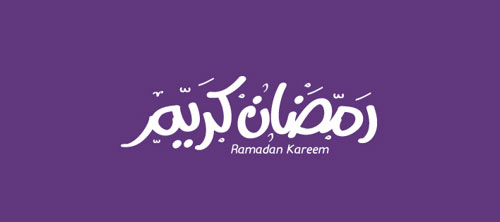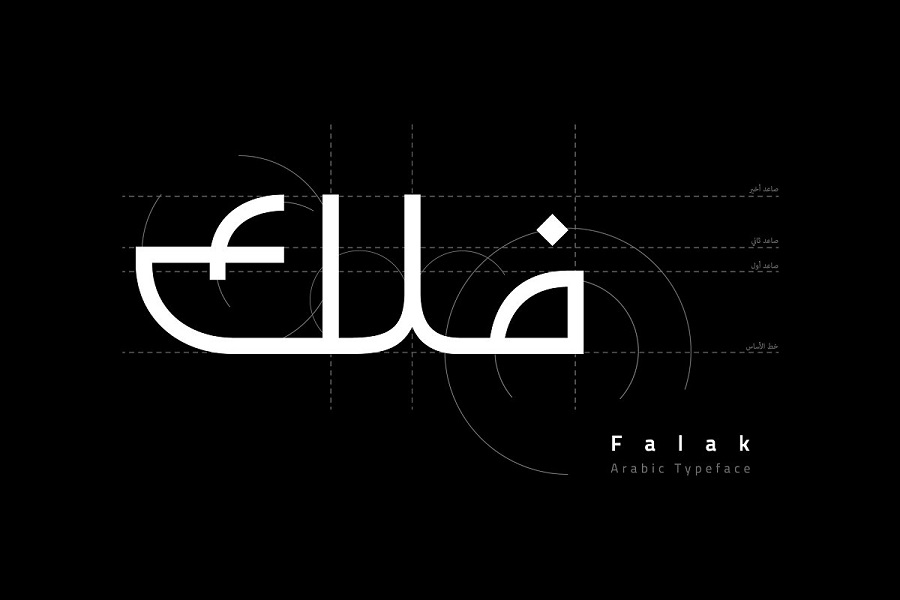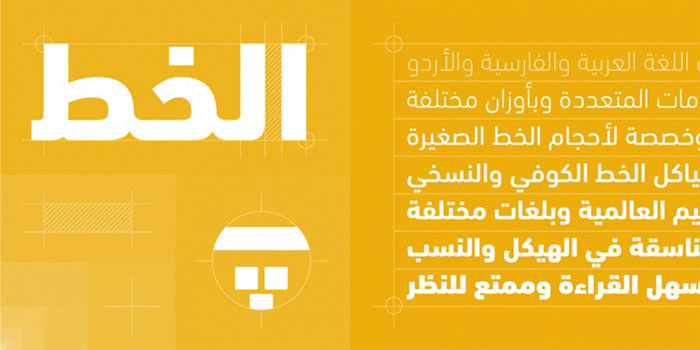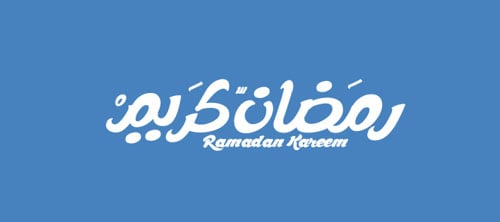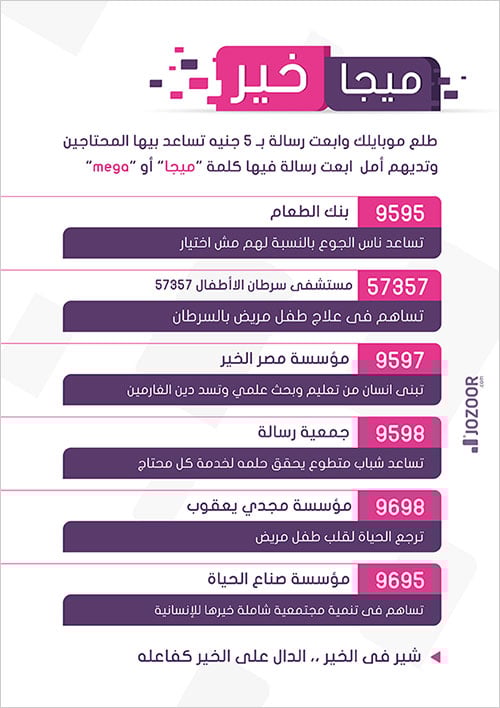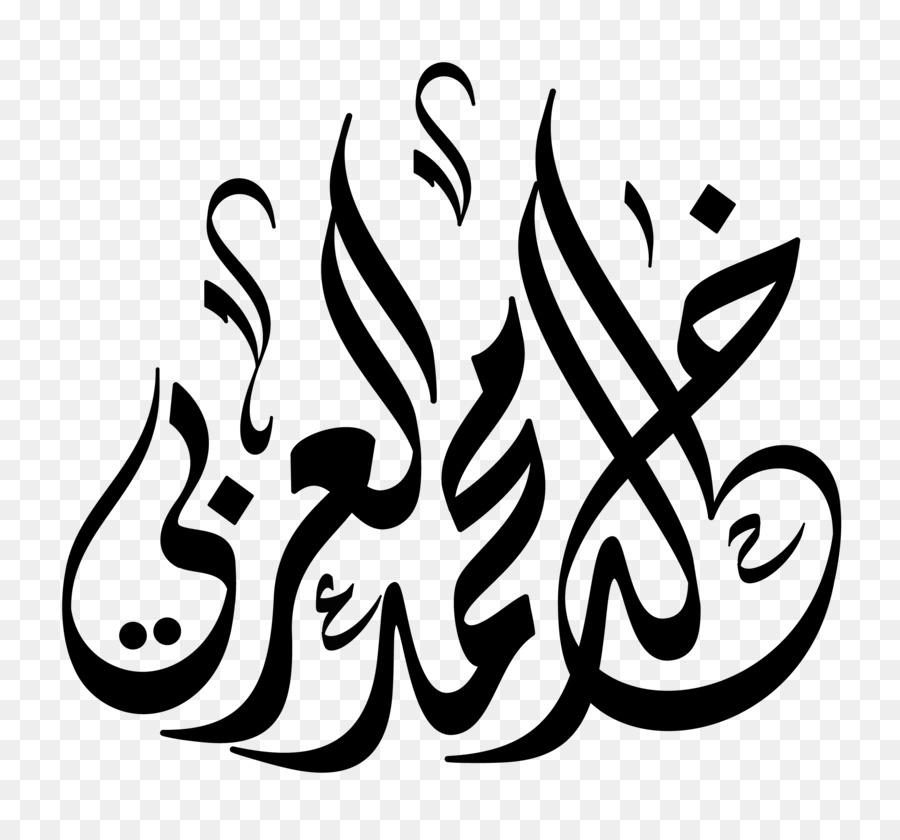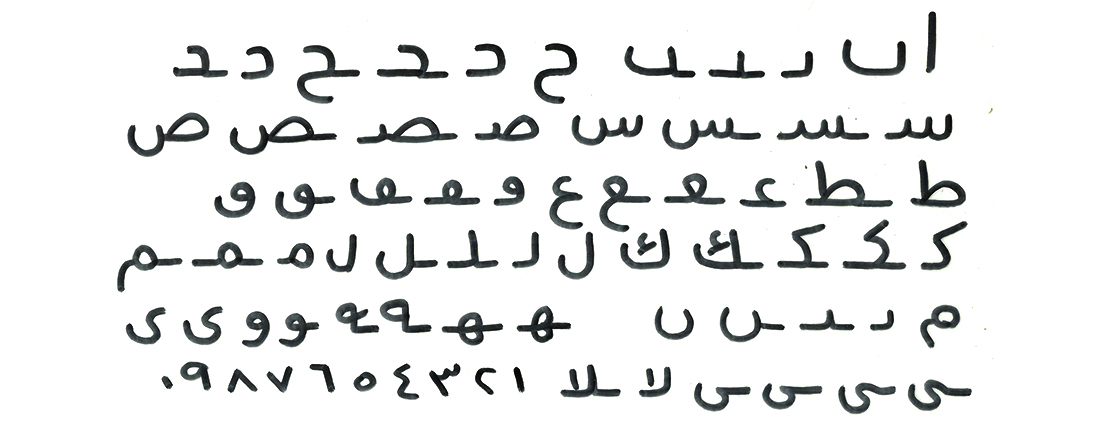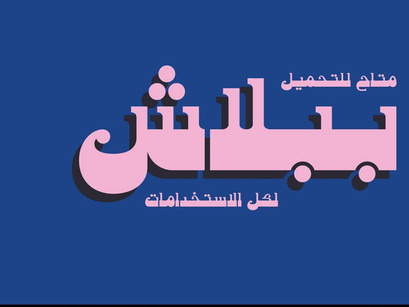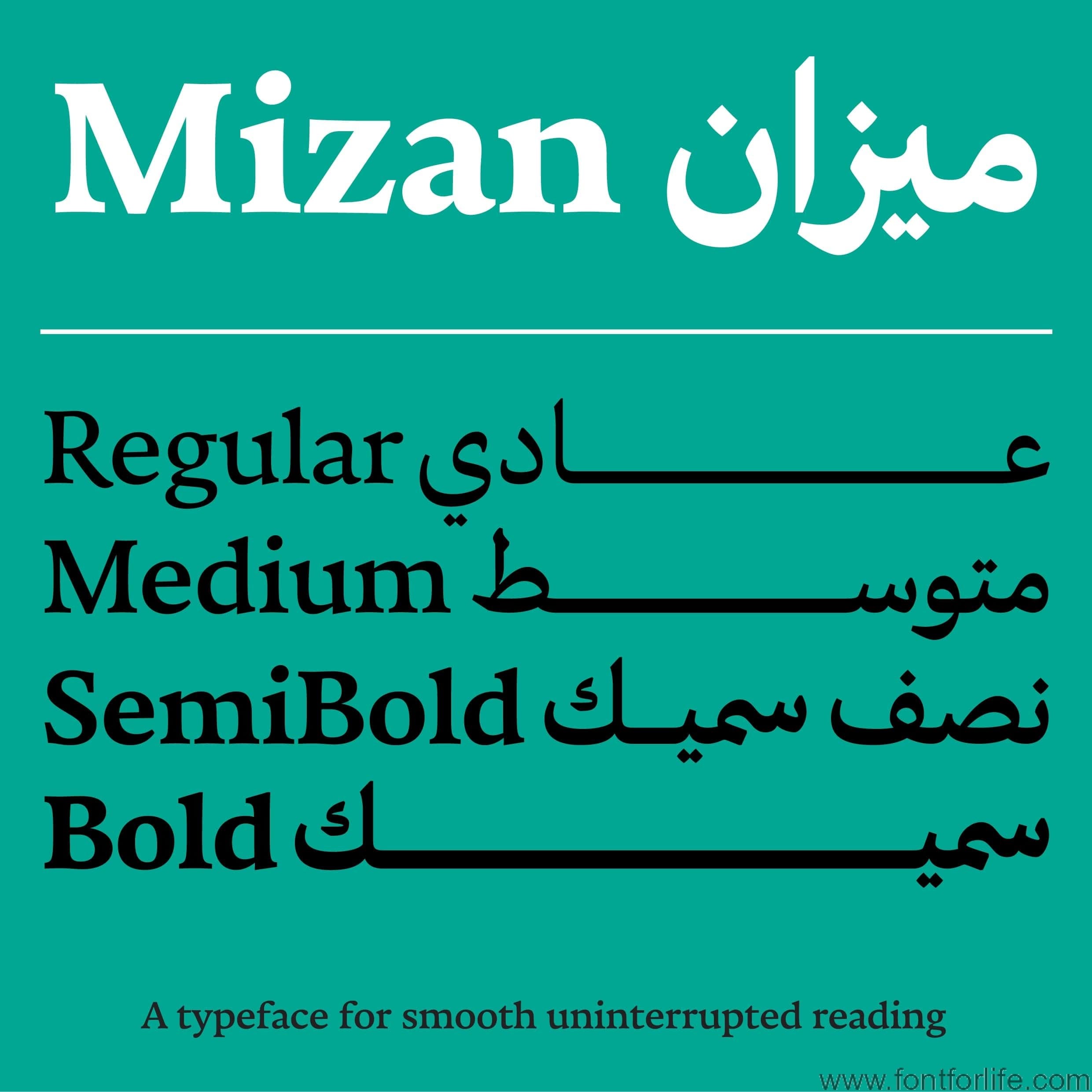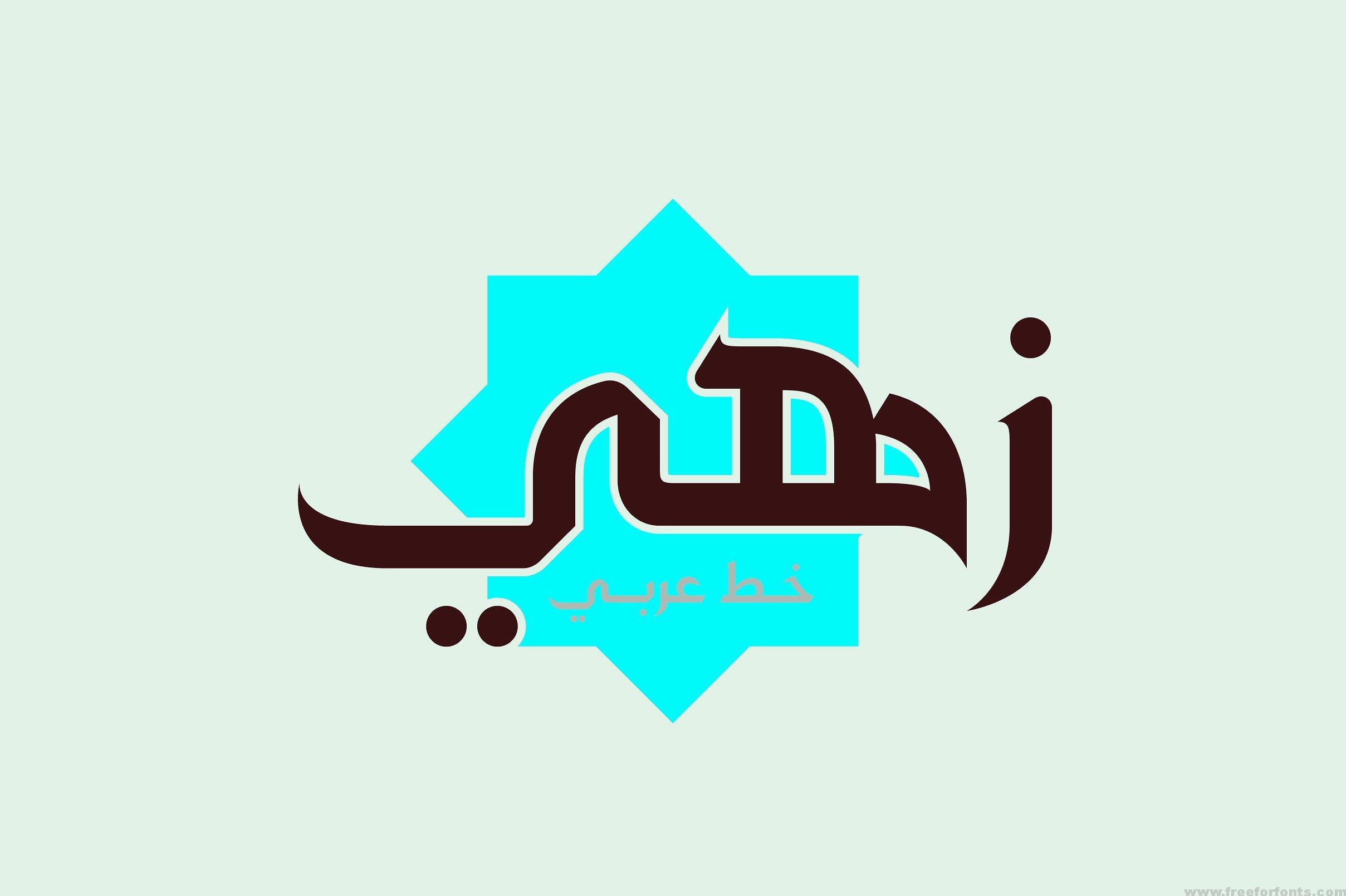
Handwriting Art Fonts Festival Logo Fonts Pattern Refining. Arabic Calligraphy Fonts 42 Free TTF Photoshop Format Download.
Sudah lama sekali saya tidak menulis tentang tipografi padahal dunia desain tentu tidak lepas dari bagaimana memilih dan melayout huruf guna mendatangkan visualisasi komunikasi yang baik bagi sebuah rancang. This Arabic font template features a bold calligraphy font. Looking for Logo Arabic fonts.
Free Style Calligraphy is a stylish Calligraphic Arabic font that is free to download. Scar Arabic Font. Download 3000 free fonts in Arabic style.
We are here to collect everything you need for this purpose. The font has a 3D design and appearance and is set on a dark pink background which ups its attractiveness a great deal. Make your web calligraphically beautiful using unique Arabic fonts.
The fonts are customizable and you can change the color and the size of the designs to include in your projects. It is a modern Kufi Naskh hybrid and keeps the balance between its construction and calligraphic angular cuts. This typeface supports Arabic Persian Urdu and Kurdish variants and it is available in five weights.
Light regular medium bold and black. The font is customizable and you can work with it in Adobe Photoshop. The words written are in blue and yellow color.